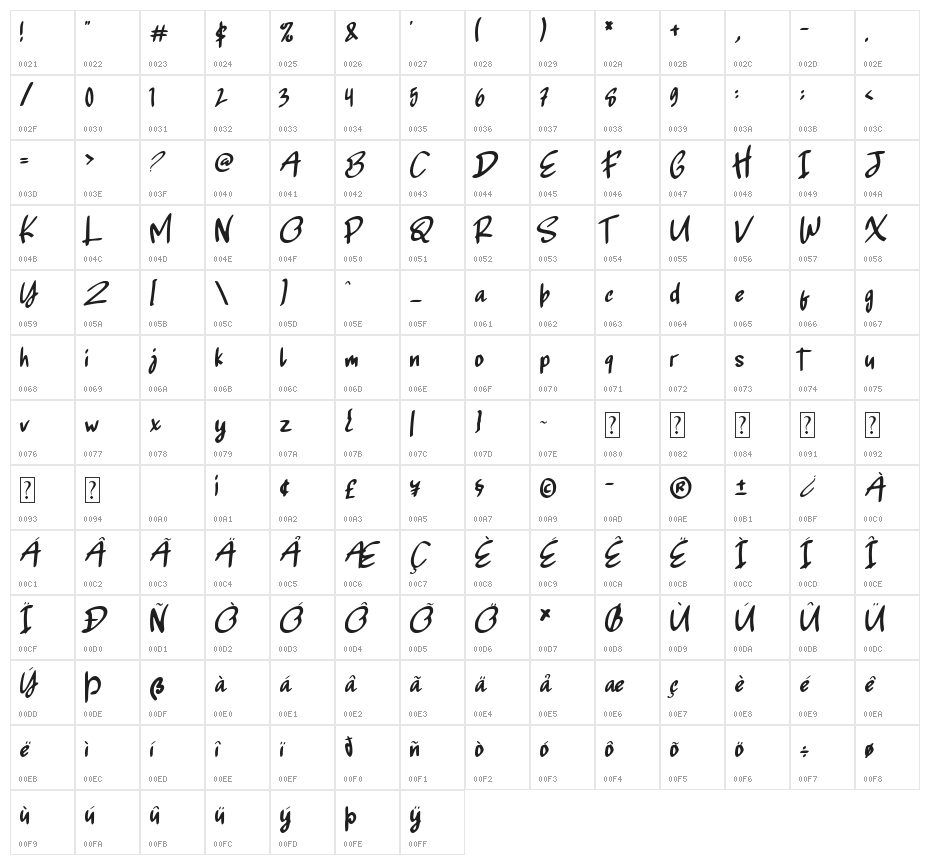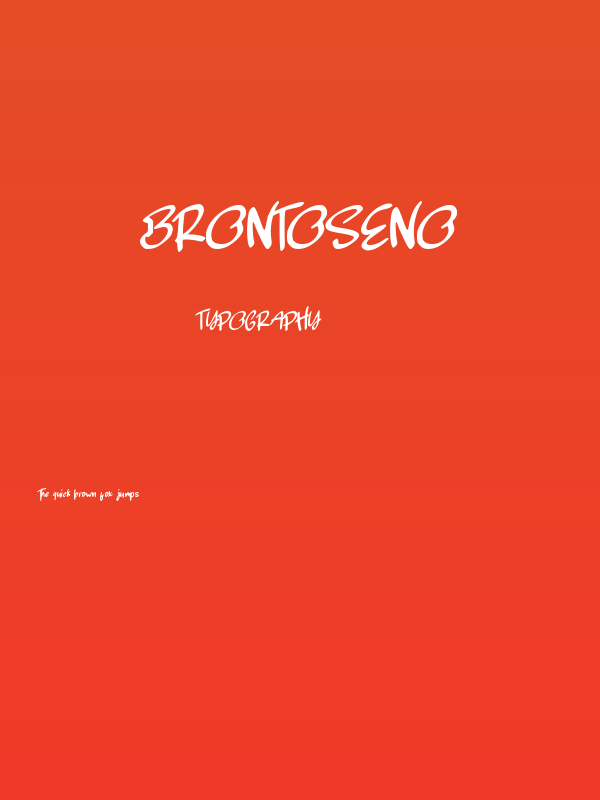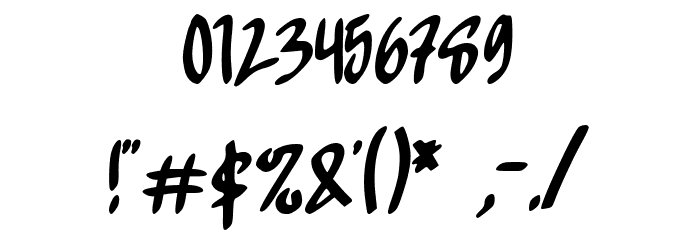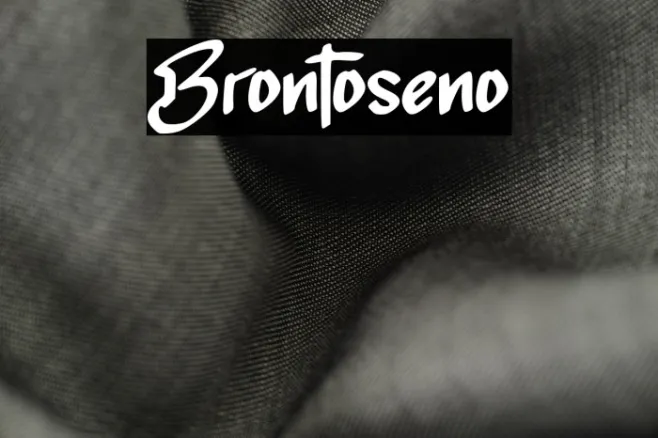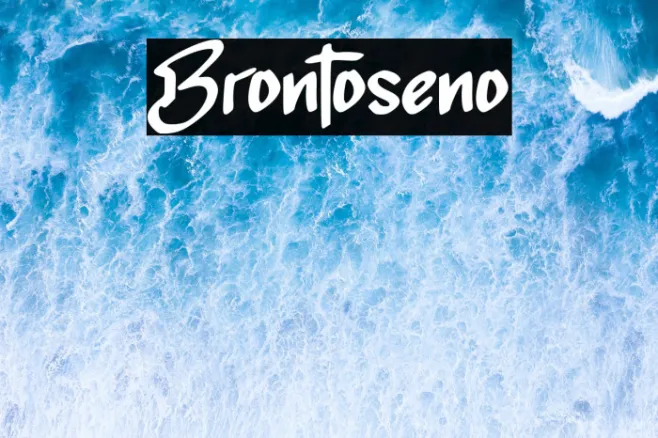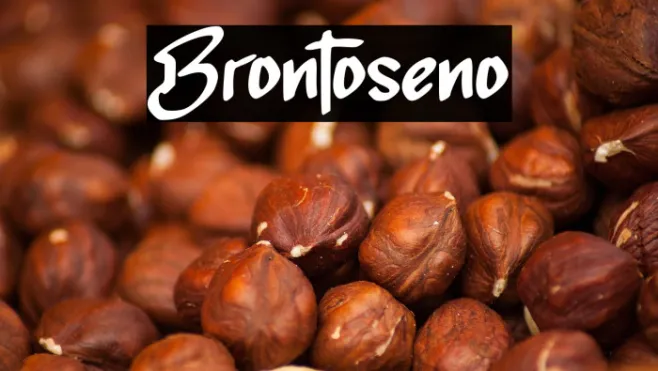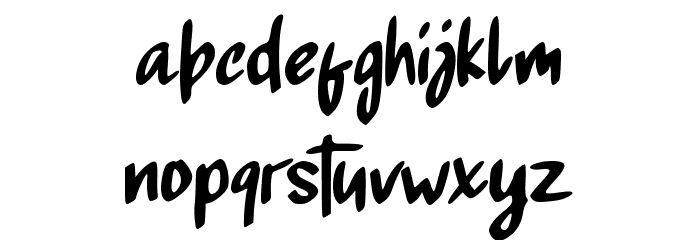
Brontoseno Font
Brontoseno Description
This font exhibits a dynamic and energetic style, characterized by its bold and fluid strokes that mimic the appearance of handwritten script. The uppercase letters are particularly expressive, with a slight slant that adds a sense of motion and flair. The lowercase letters maintain a consistent style, offering a harmonious blend of curves and angles. The numerals are clear and legible, while the special characters complement the overall aesthetic with their playful yet sophisticated design. This font is ideal for projects that require a personal touch, conveying creativity and spontaneity.
BRONTOSENO UPPERCASE
BRONTOSENO LOWERCASE
BRONTOSENO OTHER CHARS
| Proposed Projects | Ideal for branding, invitations, greeting cards, and creative posters. |